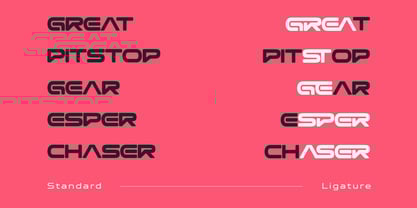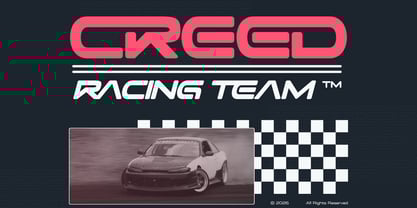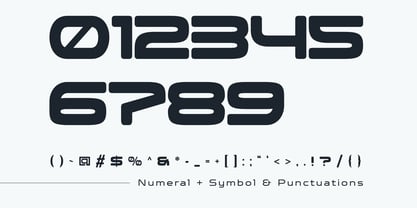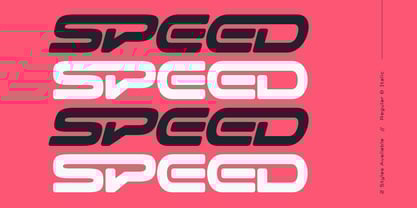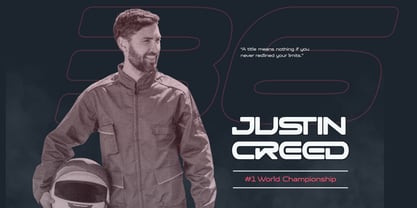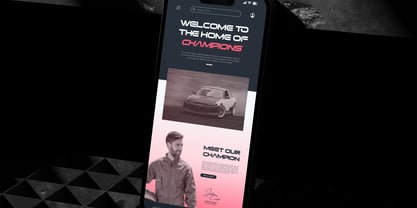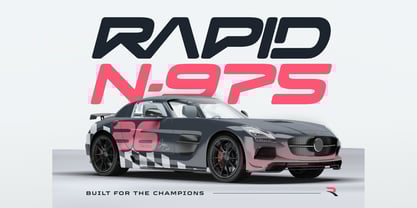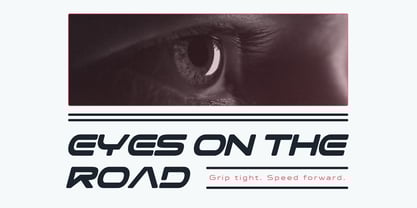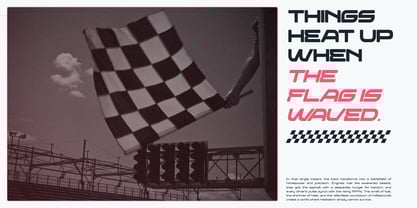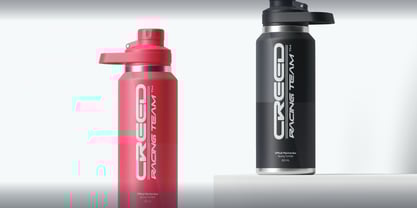
Meicre Sports
by Nirmana Visual
The Meicre Sports Font Family was designed by Sigit Dwipa and published by Nirmana Visual. Meicre Sports contains 2 styles and family package options.
Meicre Sports is a dynamic display font built to express speed, power, and modern performance. Designed with sharp cuts and strong proportions, Meicre delivers a bold sporty character that feels fast and aggressive. Available in Regular and Italic styles, it brings motion and energy to every layout. Perfect for logos, automotive branding, cars, motorbikes, racing visuals, apparel, posters, and bold brand identities. Meicre Sports is ideal for projects that demand impact, adrenaline, and a strong competitive edge.